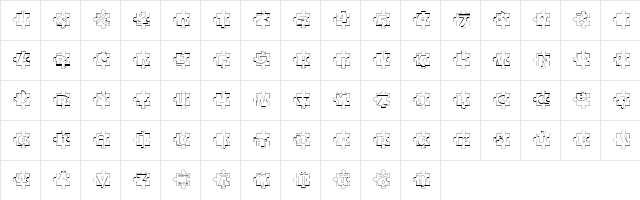
Puzzle Pieces Outlined is built around its visual character rather than neutral utility - its distinctive forms are designed to make an impression at display sizes.
Suited to editorial headers, event branding, and any context where the font itself is part of the message.
Font Pairing: Pair with a clean neutral sans-serif for body copy to let Puzzle Pieces Outlined's character lead without overwhelming the composition.
Pro Tip: Use Puzzle Pieces Outlined exclusively at display sizes - it was designed to be seen, not read at length. Let a neutral companion handle body copy.